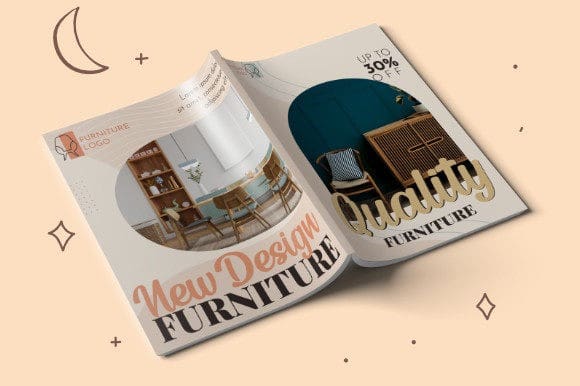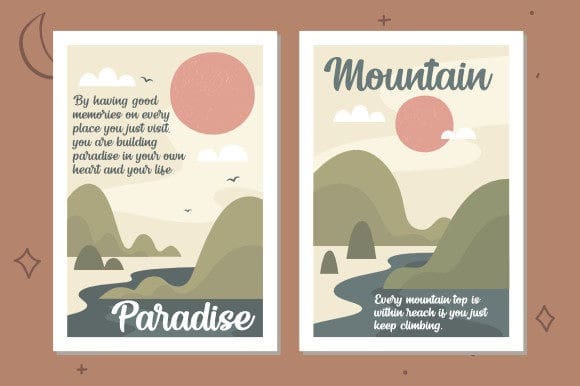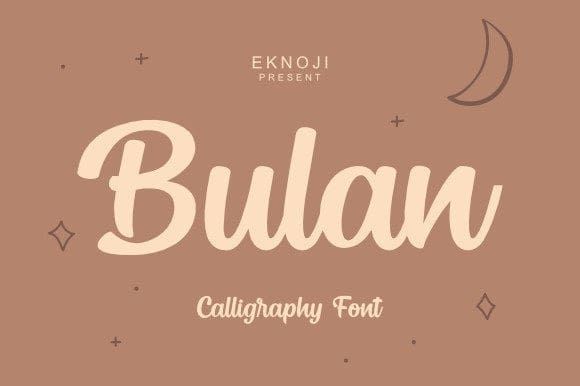
Bulan Script Font
Bulan Script Font is a cursive and timeless handwritten font. It is the best choice for creating eye catching logos, branding and quotes. This font is PUA encoded which means you can access all of the glyphs and swashes with ease!